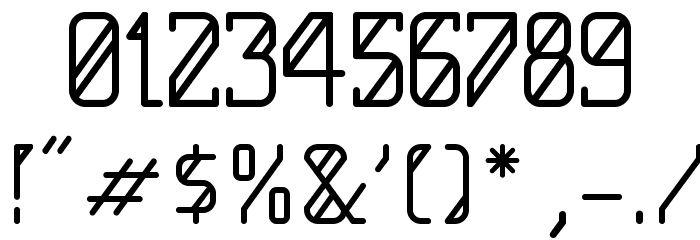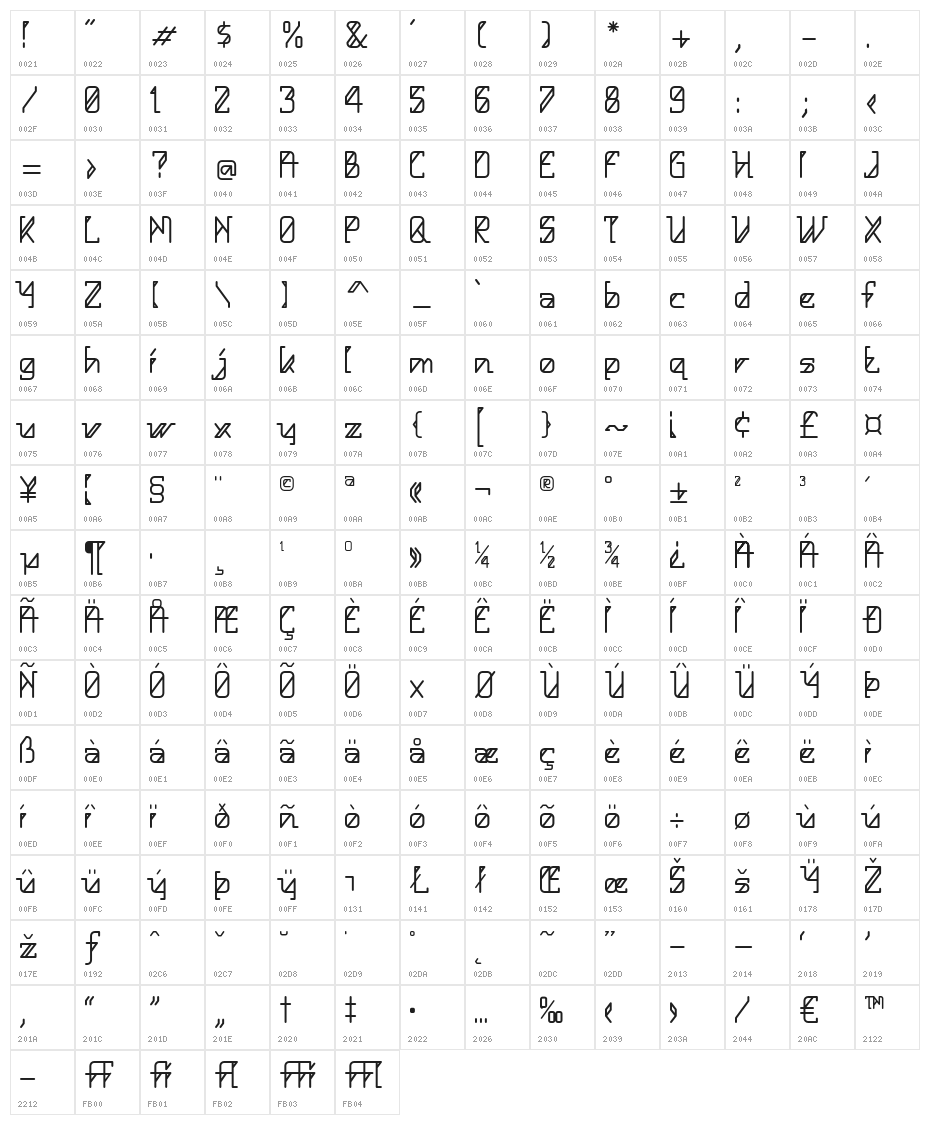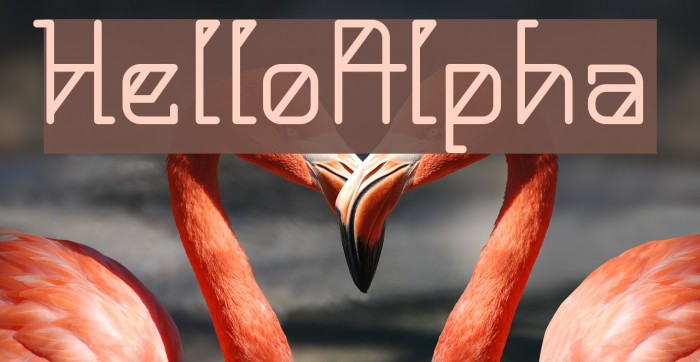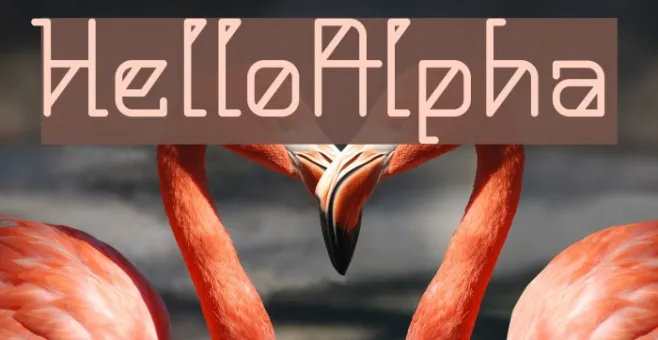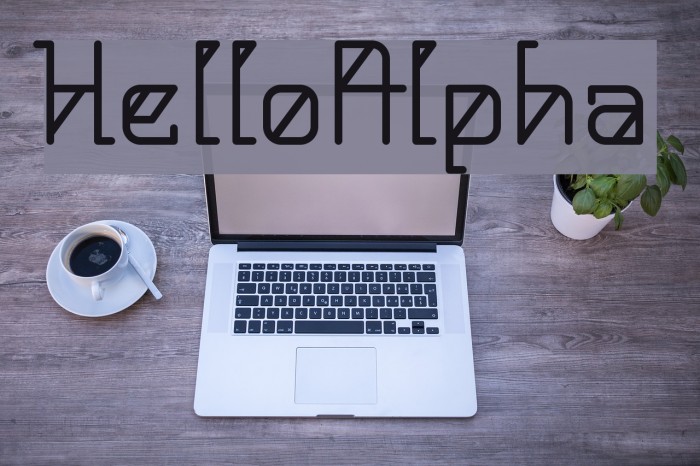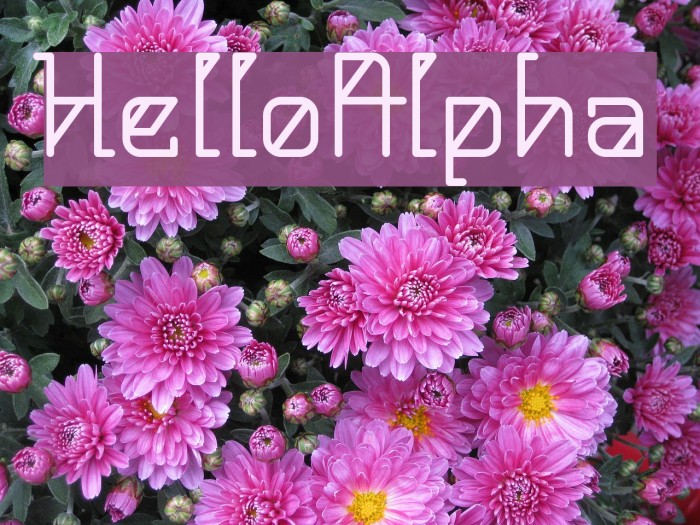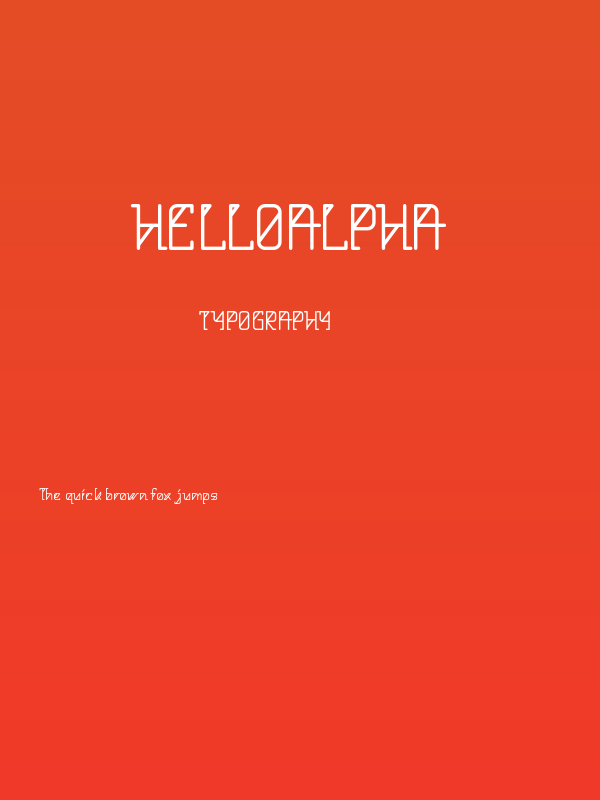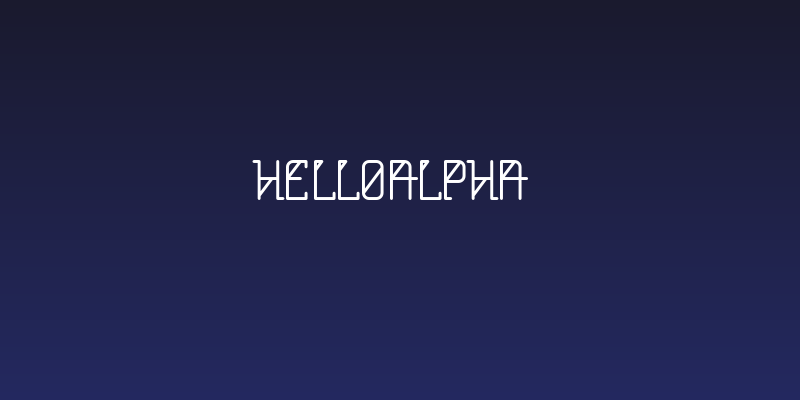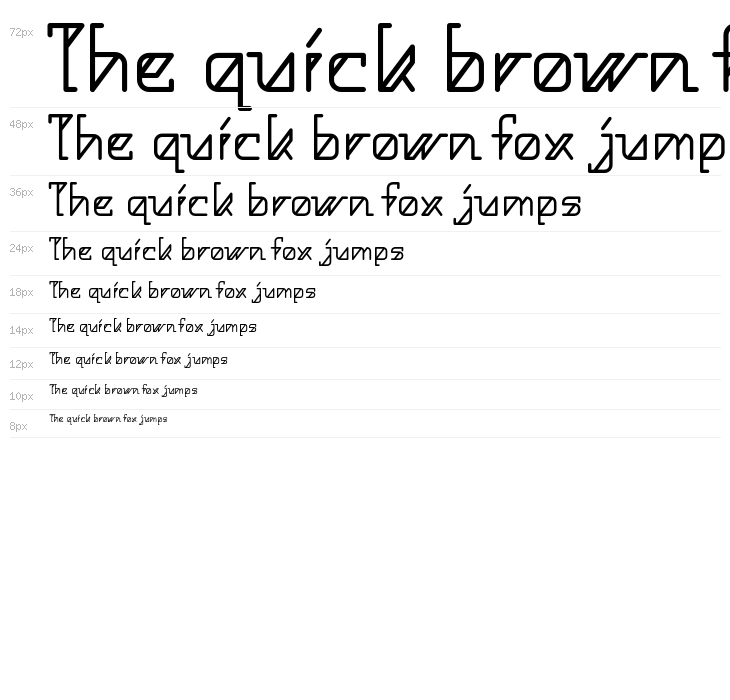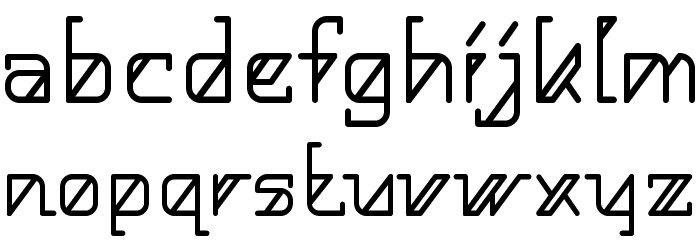
HelloAlpha Font
HelloAlpha Description
This font features a unique geometric design with a modern twist. The characters are constructed with straight lines and sharp angles, giving it a futuristic and technical appearance. The uppercase letters are bold and striking, while the lowercase letters maintain a consistent style with slightly softer edges. The numerals are clear and easy to read, following the same geometric pattern. Special characters are well-integrated, maintaining the overall aesthetic. This font is ideal for projects that require a modern, tech-savvy look, such as digital interfaces, tech branding, and innovative product designs.
| Proposed Projects | Ideal for tech branding, digital interfaces, and innovative product designs. |